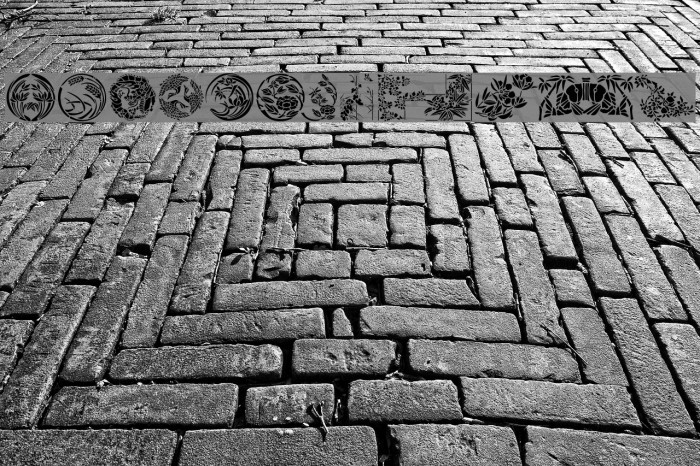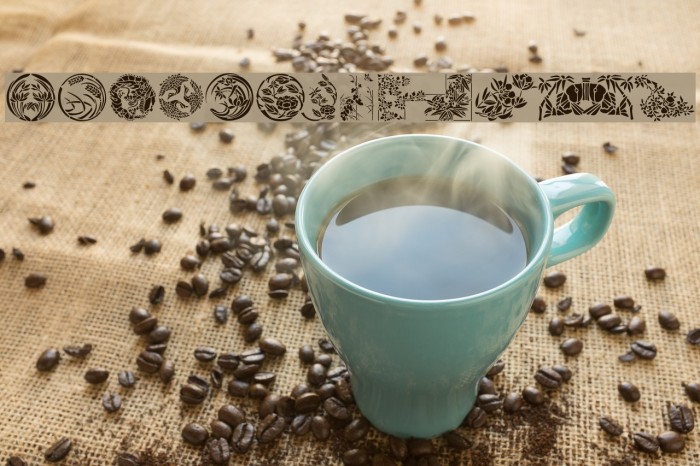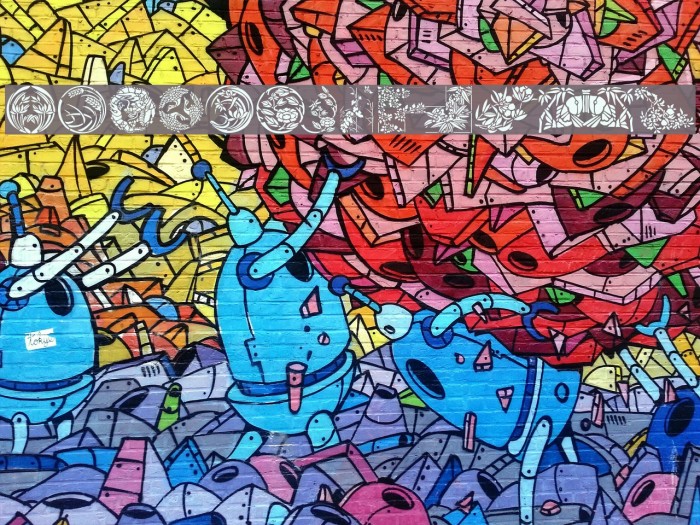
Japanese Designs Font
Japanese Designs Description
This decorative font is inspired by traditional Japanese designs, featuring intricate patterns and motifs within each character. The uppercase letters are adorned with floral and geometric elements, creating a visually rich and ornate appearance. The overall aesthetic is reminiscent of classic Japanese art, with a focus on symmetry and balance. The characters are bold and striking, making them suitable for display purposes where a touch of cultural elegance is desired. The font's unique style captures the essence of Japanese artistry, making it a perfect choice for projects that aim to incorporate traditional themes with a modern twist.
| Proposed Projects | Ideal for cultural event posters, themed invitations, artistic branding, and decorative signage. |